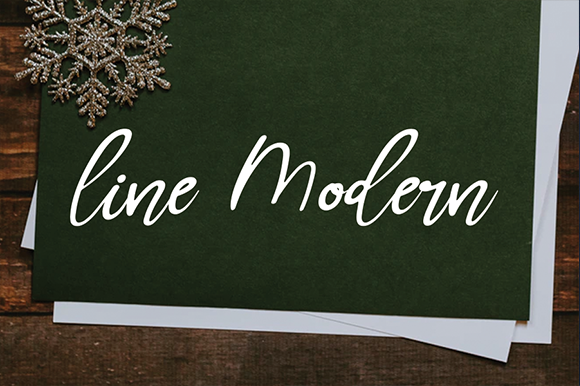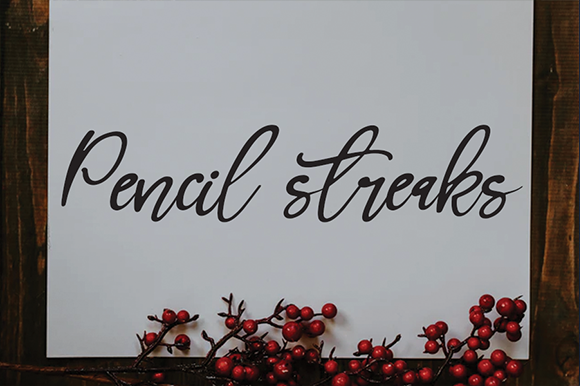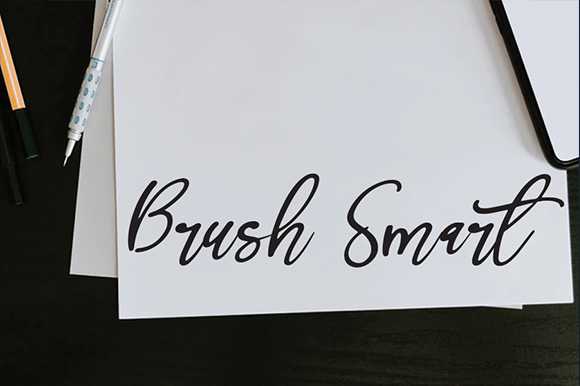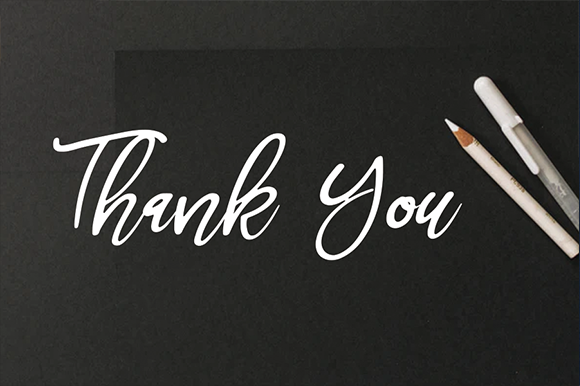
Introduction to Jollia Bolla Font Font
Fonts play a crucial role in design, and the Jollia Bolla Font font is a typeface that brings both character and versatility to any project. Whether you’re working on a branding project, a website, or a print design, the Jollia Bolla Font font offers a unique style that can elevate your work.
Jollia Bolla is a magical handwritten font carefully created with a touch of elegance.
It features an incredibly classic style, while still keeping a friendly feel This font is the perfect font for making original and outstanding designs.
Key Features of Jollia Bolla Font Font
Why Choose Jollia Bolla Font Font?
The Jollia Bolla Font font is more than just a typeface – it’s a design tool that helps you communicate your message with style and clarity. Its unique character set and versatile design make it suitable for a wide range of applications, from elegant invitations to bold headlines.
With its carefully crafted letterforms and balanced proportions, the Jollia Bolla Font font ensures readability and visual appeal across all mediums.
What makes Jollia Bolla Font font special?
The Jollia Bolla Font font stands out with its unique design, exceptional readability, and versatility across various design applications.